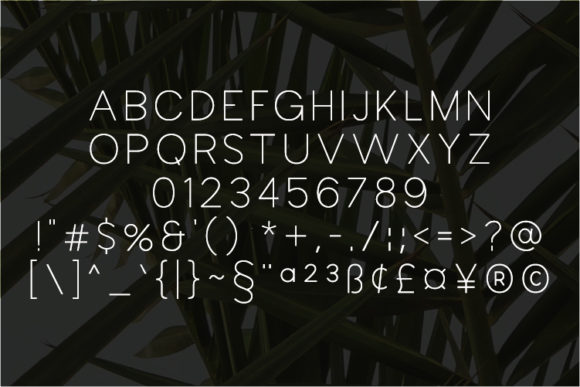
Introducing Banklie Font: The Ultimate Sans Serif Solution for Designers and Crafters
In the world of typography, fonts play a crucial role in making or breaking a design. A well-chosen font can elevate your project, making it more engaging, readable, and aesthetically pleasing. For designers and crafters looking for a smooth sans serif font that perfectly complements their designs, Banklie Font is an excellent choice. With its perfectly balanced mix of smooth and sharp elements, Banklie Font is set to become your go-to typeface for a wide range of projects.
What Makes Banklie Font Stand Out?
Banklie Font boasts a smooth sans serif design that exudes modernity and sophistication. Its clean lines and curves make it highly legible, ensuring that your text is easy to read, whether it’s used in a digital format or in print. The font’s smooth edges also contribute to its versatility, allowing it to seamlessly integrate into various design contexts, from branding and advertising to web design and crafting.
One of the key features that sets Banklie Font apart is its perfect balance of smooth and sharp elements. This balance gives the font a unique character that is both elegant and edgy, making it suitable for a wide range of applications. Whether you’re working on a minimalist project that requires a subtle touch or a more complex design that needs a bold statement, Banklie Font adapts effortlessly.
Benefits of Using Banklie Font
There are several benefits to using Banklie Font in your designs:
- Versatility: Banklie Font’s smooth sans serif design makes it incredibly versatile. It can be used in various contexts, including logos, headings, body text, and more.
- Legibility: The font’s clean and smooth edges ensure high legibility, making it perfect for both digital and print materials.
- Aesthetic Appeal: Banklie Font’s balanced mix of smooth and sharp elements gives it a unique aesthetic appeal that can enhance the visual impact of your designs.
- Easy to Pair: Due to its neutral yet distinctive design, Banklie Font is easy to pair with other fonts, allowing you to create harmonious and engaging typography.
Who Can Benefit from Banklie Font?
Banklie Font is an excellent choice for a variety of designers and crafters, including:
- Graphic Designers: Looking for a modern sans serif font that can elevate their branding and advertising projects.
- Web Designers: Seeking a clean and legible font for their websites and digital applications.
- Crafters: Working on DIY projects, such as handmade cards, scrapbooking, and other paper crafts.
- Marketing Professionals: Needing a professional and versatile font for their marketing materials.
How to Use Banklie Font Effectively
To make the most of Banklie Font, consider the following tips:
- Experiment with Sizes: Banklie Font looks great in various sizes, from large headings to smaller body text.
- Play with Colors: The font’s smooth design works well with a wide range of colors, so don’t be afraid to experiment.
- Mix and Match: Try pairing Banklie Font with other fonts to create interesting and dynamic typography.
- Consider Context: Adapt the font’s usage based on the project’s context, adjusting its size, color, and style as needed.
In conclusion, Banklie Font is a smooth sans serif font that offers the perfect blend of modernity, versatility, and aesthetic appeal. Its balanced mix of smooth and sharp elements makes it an excellent choice for designers and crafters looking to elevate their projects. With its high legibility, ease of use, and wide range of applications, Banklie Font is set to become a staple in many creative toolkits.